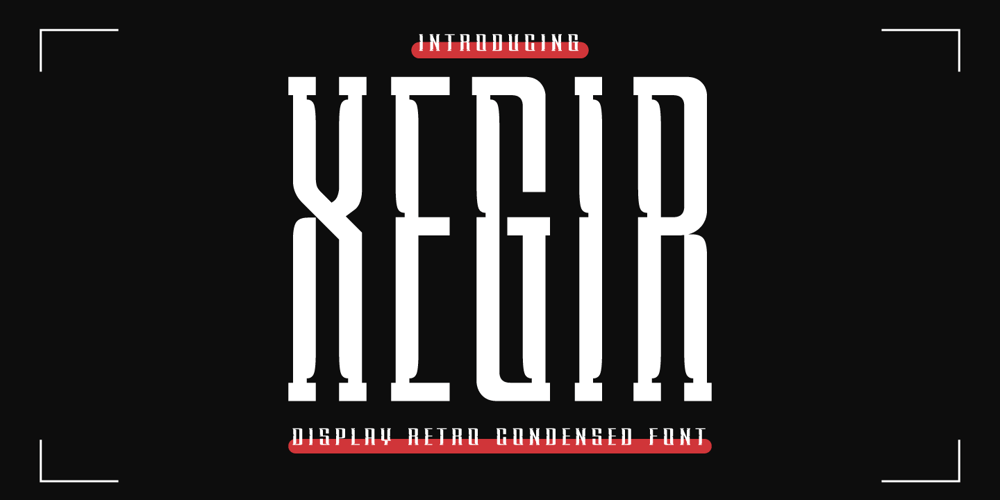
Xegir Font Family was designed by Rozikan and published by Twinletter. Xegir contains 2 styles and family package options. The Xegir Retro Condensed Display font is a strong solid display font with tall, dense shapes with a geometric appearance. comes with two styles slab and sans perfect for titles, typography, magazines, brochures, packaging, and many more for your design needs, making your designs more modern and professionalWhat’s Included :- File font- All glyphs Iso Latin 1- Alternate, Ligature- Simple installations- We highly recommend using a program that supports OpenType features and Glyphs panels like many Adobe apps and Corel Draw so that you can see and access all Glyph variations.- PUA Encoded Characters – Fully accessible without additional design software.- Fonts include Multilingual support